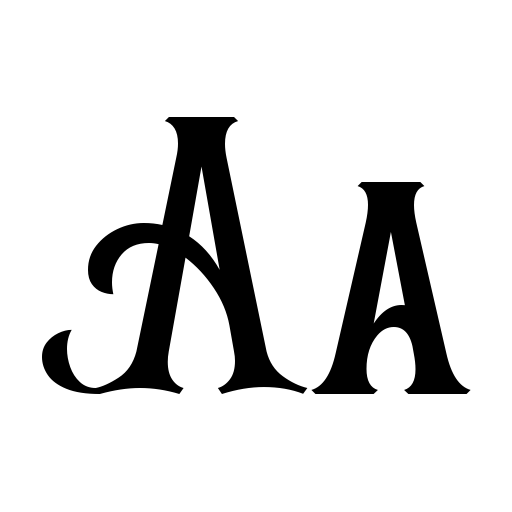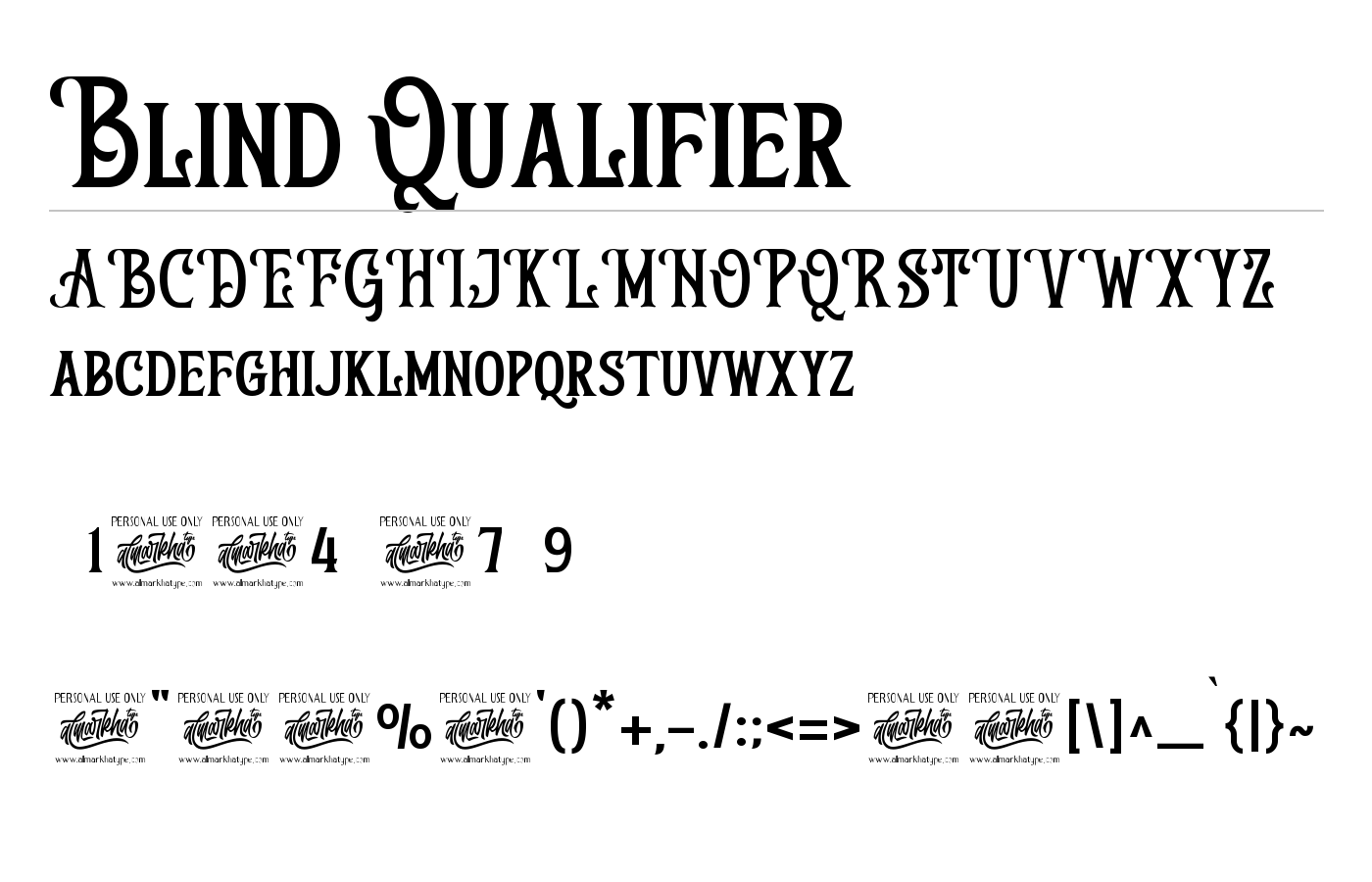
Blind Qualifier is a bold serif typeface with a vintage, ornamental style that combines thick and thin strokes with decorative curls and sharp edges. Its unique letterforms evoke a classic, theatrical feel, making it ideal for eye-catching headlines, logos, and branding projects that seek a blend of elegance and old-world charm. This font works best in designs that want to convey a distinctive, timeless personality with a touch of flair.
Blind Qualifier Font
About Blind Qualifier Font